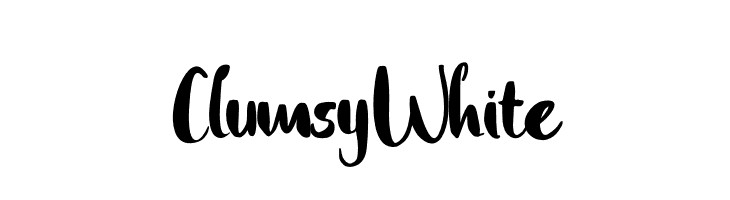
A lively, expressive handwritten font with fluid, connected strokes.
A whimsical, interconnected script font with a playful and elegant style.
A bold, handwritten font with a textured, dynamic style.
A dynamic and expressive script font with flowing cursive letterforms.
A playful, rounded font with whimsical loops and consistent stroke weight.
A bold, playful, and interconnected font with a whimsical style.
A graceful, cursive script font with a handwritten style.
A whimsical, playful handwritten font with flowing, interconnected strokes.
A lively, handwritten script font with flowing, connected letters.
A playful and whimsical handwritten font with fluid, interconnected characters.